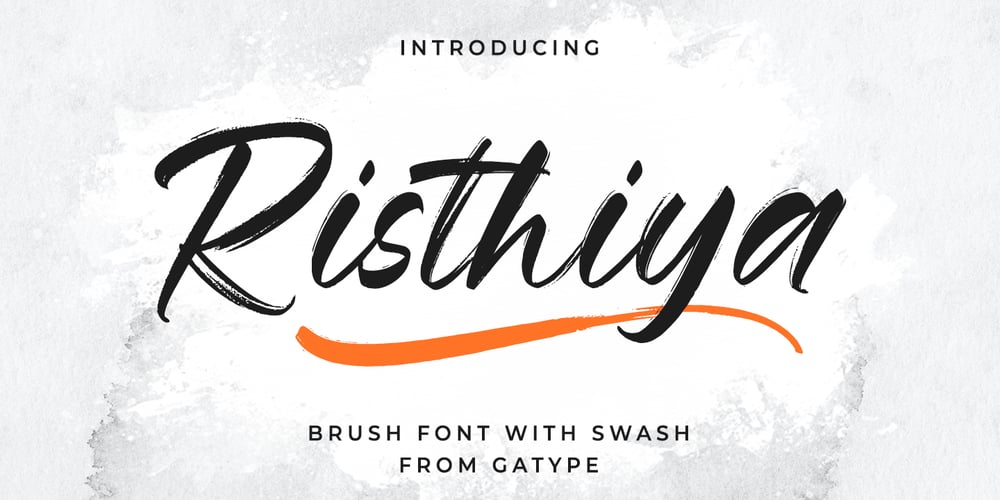
Risthiya Brush (DEL) Font Family was designed by khaidir and published by Gatype. Risthiya Brush (DEL) contains 1 styles and family package options. Risthiya Brush is textured brush font, contemporary approach to design, handmade natural with an irregular baseline. Suitable for use in title design. Such as apparel, invitations, books tittle, stationery design, quotes, branding, logos, greeting card, t-shirt, packaging design, poster and more. Risthiya Brush includes a complete set of uppercase and lowercase letters, as well as multi-language support, numbers, punctuation, ligatures.Thanks so much for looking and please let me know if you have any questions.